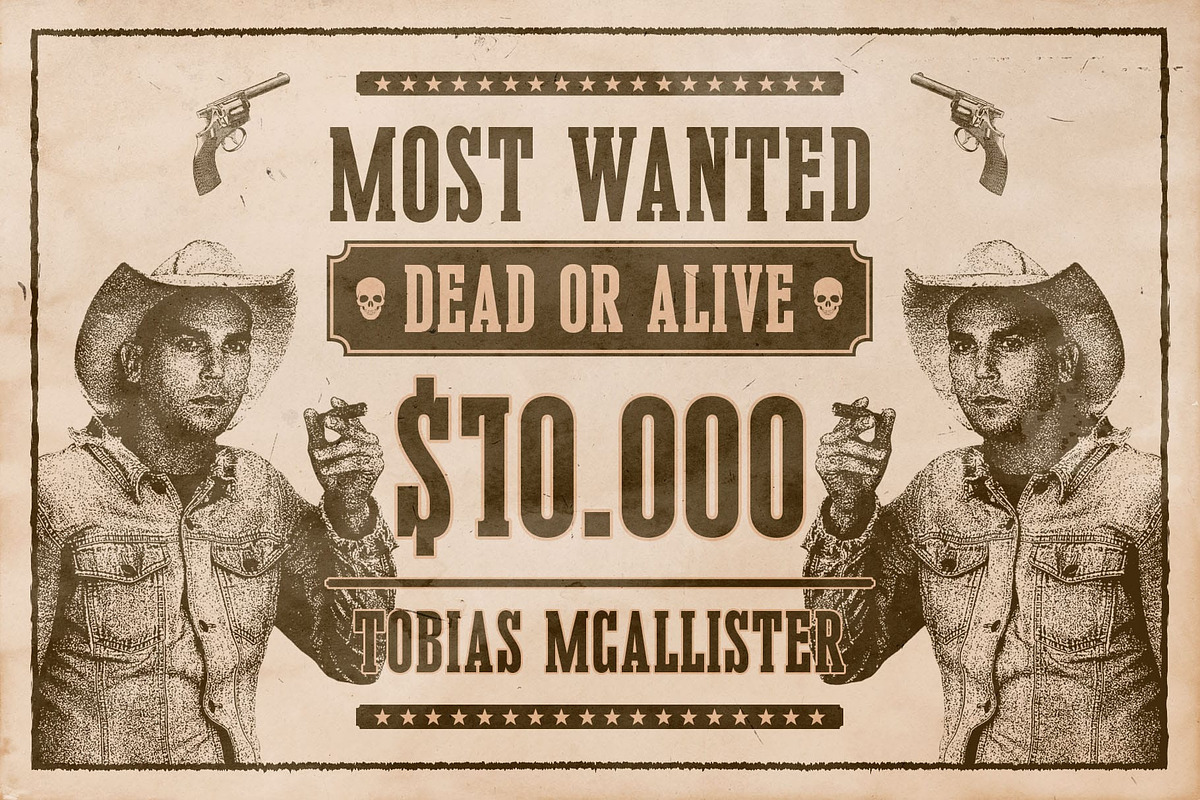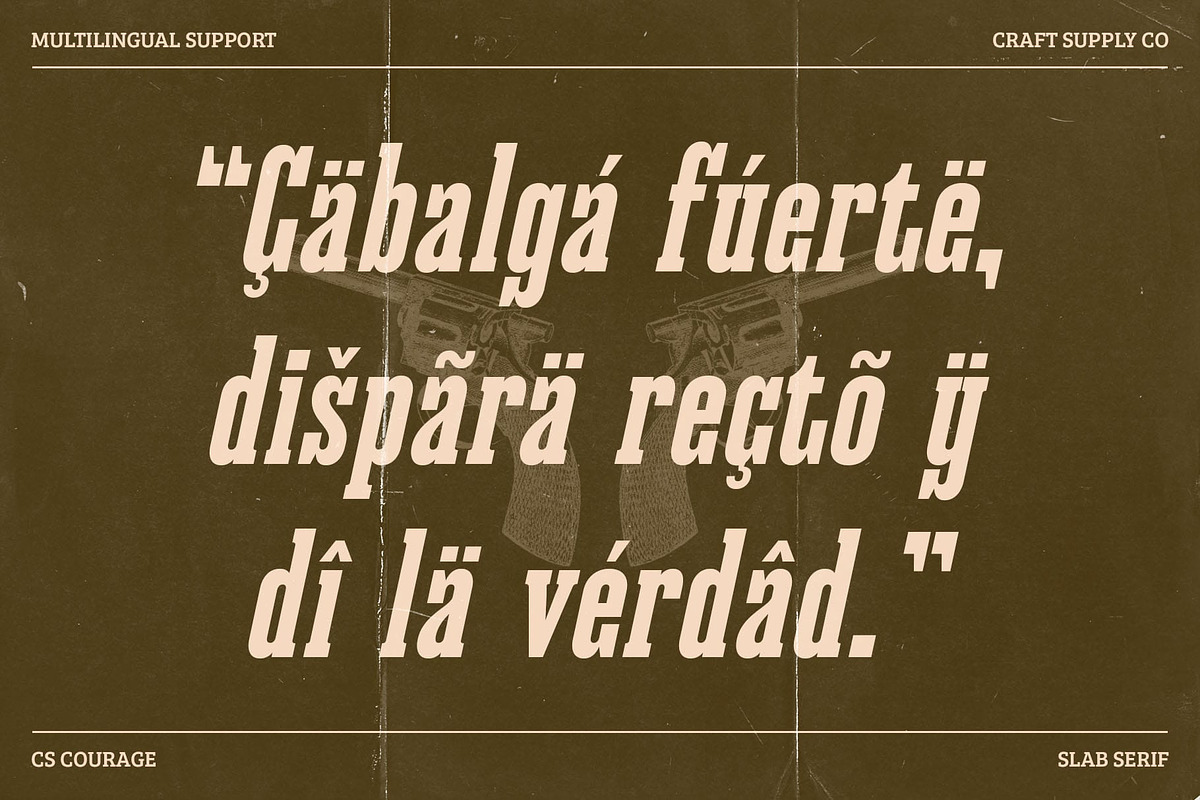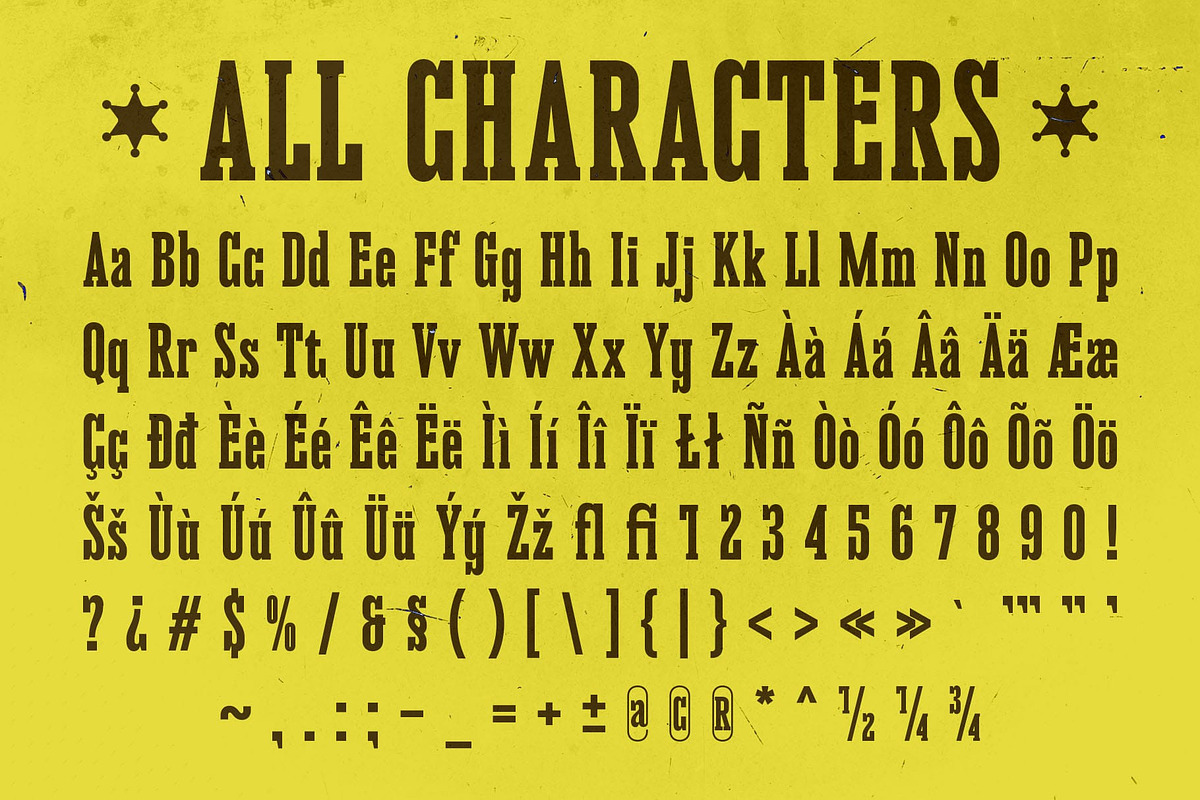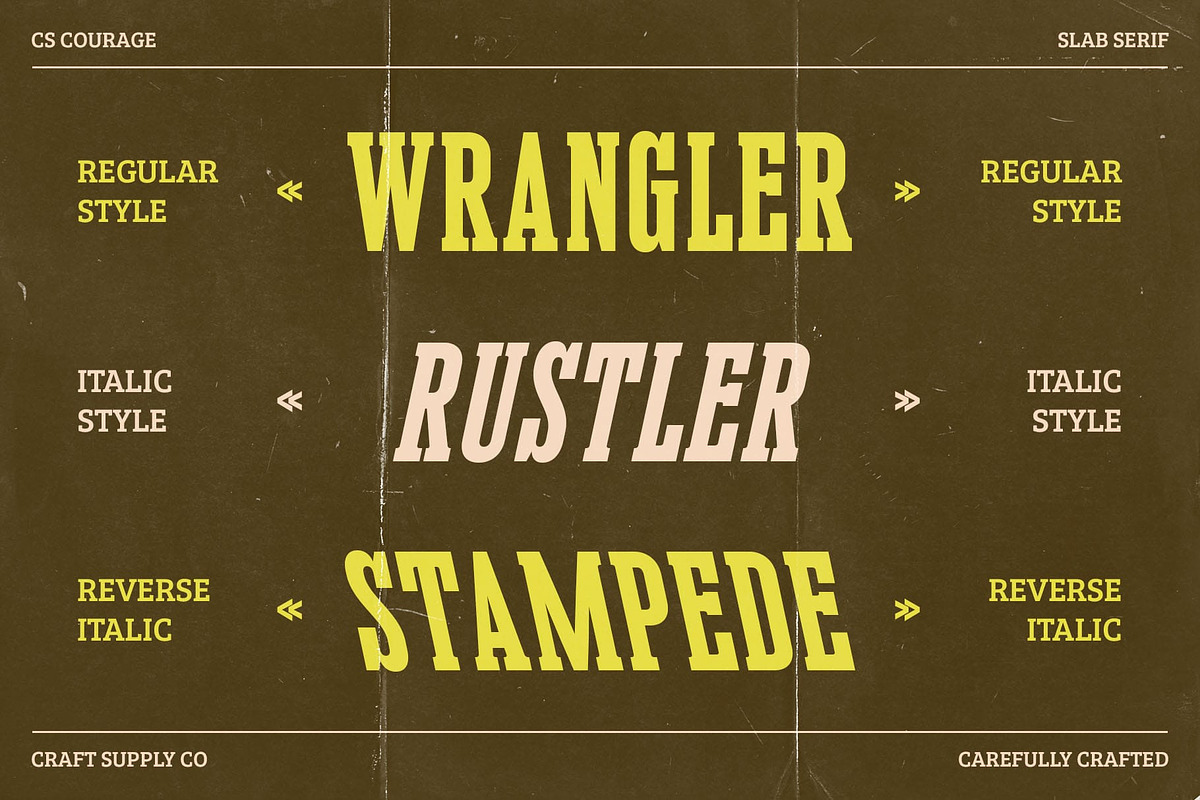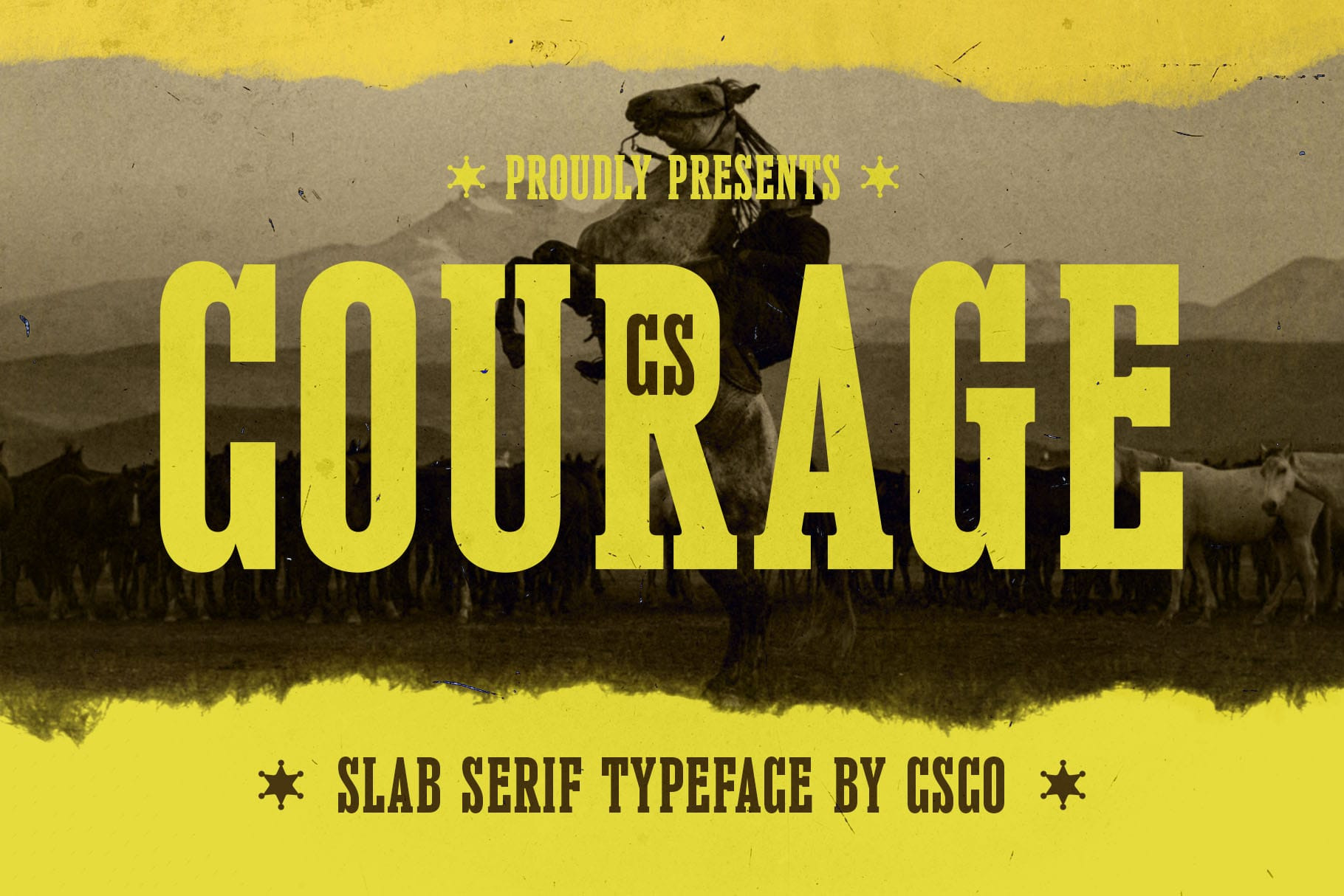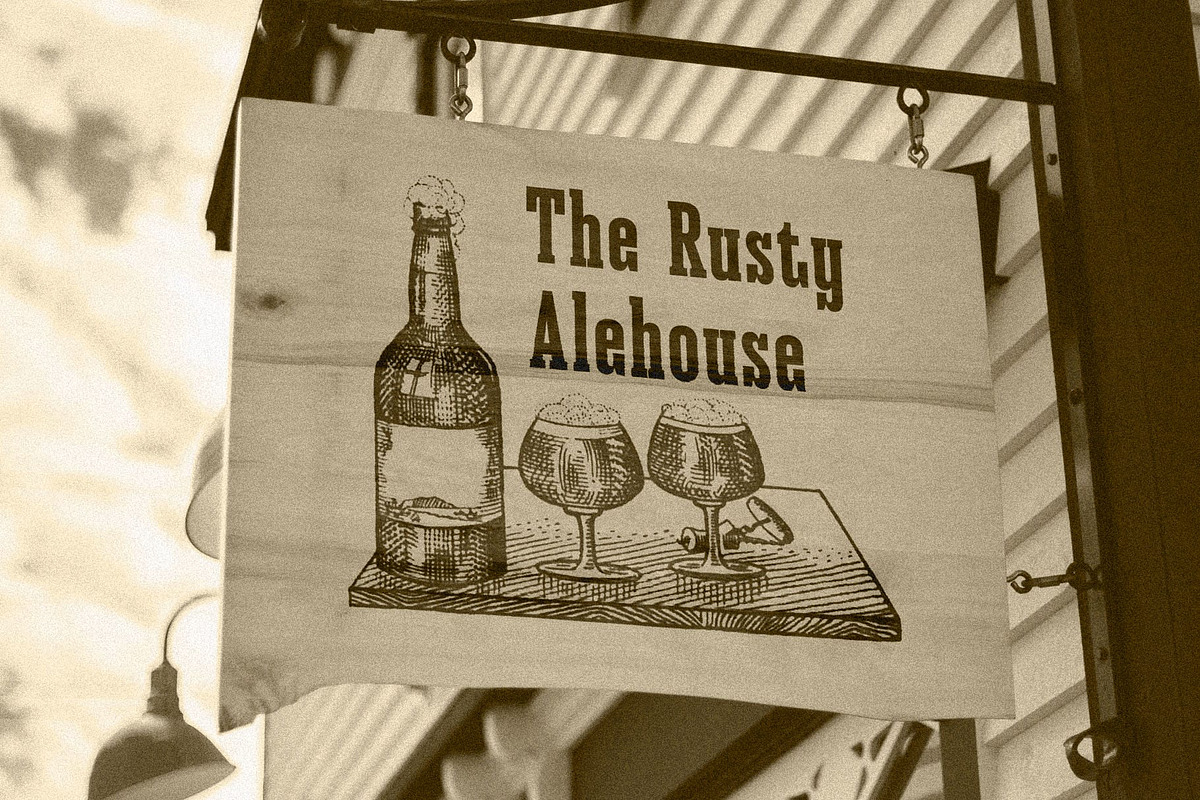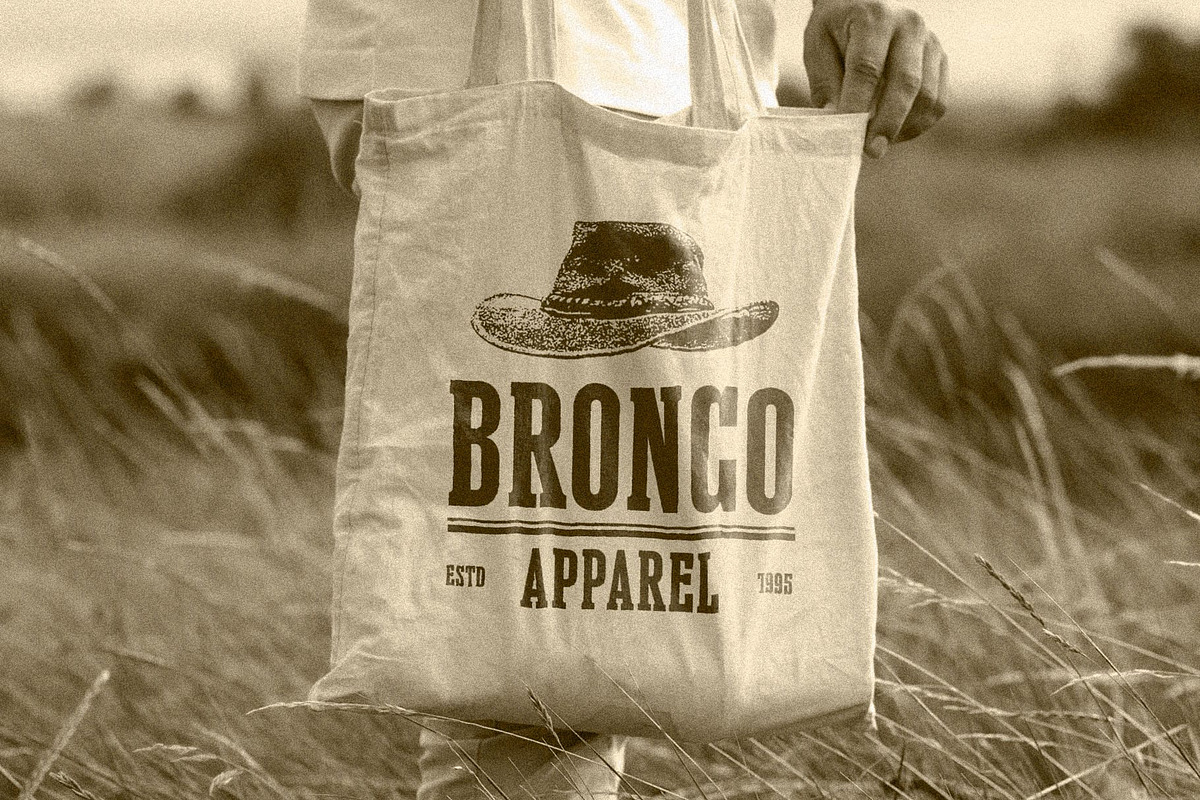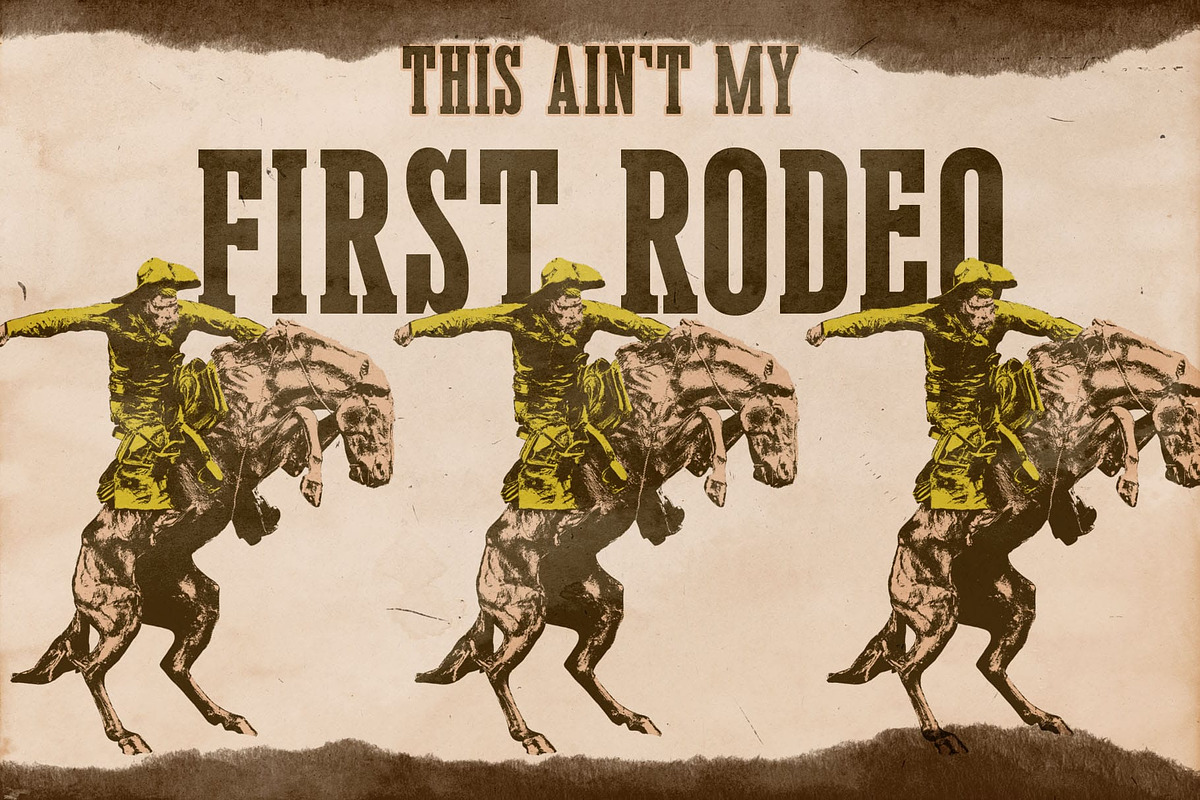
CS Courage – Retro Font
CS Courage – Retro Font: Bold, Strong, and Timeless
Powerful Slab Serif with Retro Charm CS Courage – Retro Font is a bold and blocky slab serif typeface designed to convey strength, confidence, and a rugged vintage aesthetic. Inspired by classic Western signage, old boxing posters, and heritage branding, this font delivers a striking visual impact that demands attention. Its structured letterforms and strong presence make it a perfect choice for bold headlines, branding, and display purposes.
Sturdy and Masculine Letterforms With its thick, squared serifs and sturdy construction, CS Courage embodies a masculine and authoritative feel. The font’s well-balanced proportions ensure excellent readability at any size, allowing it to maintain clarity and impact whether used in large headlines or smaller text applications. The sharp edges and firm structure add a sense of reliability and boldness, making it ideal for designs that need to exude power and tradition.
Perfect for Heritage and Adventure-Themed Designs CS Courage thrives in vintage-inspired projects, cowboy flyers, adventure-themed branding, and rugged promotional materials. Its distinct retro appeal makes it an excellent fit for Western aesthetics, classic sports branding, and retro-themed merchandise. Whether used for apparel, posters, signage, or packaging, this font captures the essence of nostalgia while remaining versatile for modern applications.
- CS Courage Regular
- CS Courage Italic
- CS Courage Reverse Italic